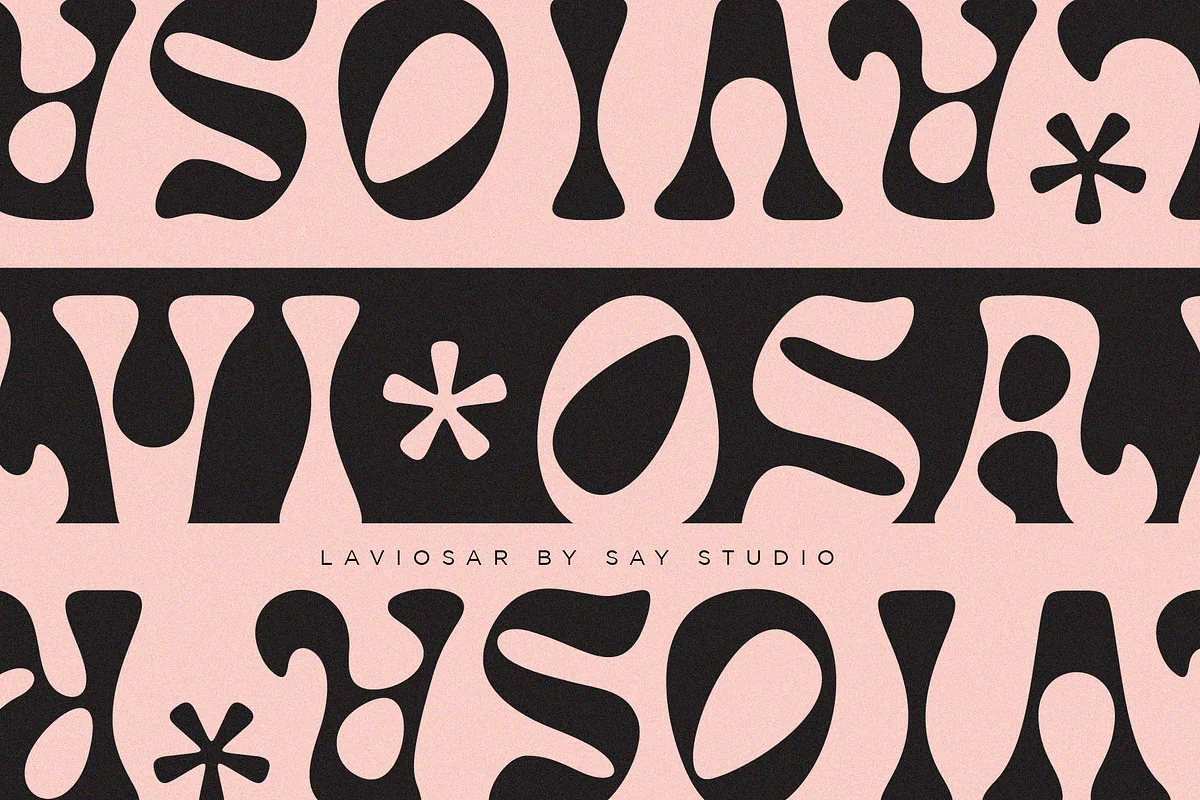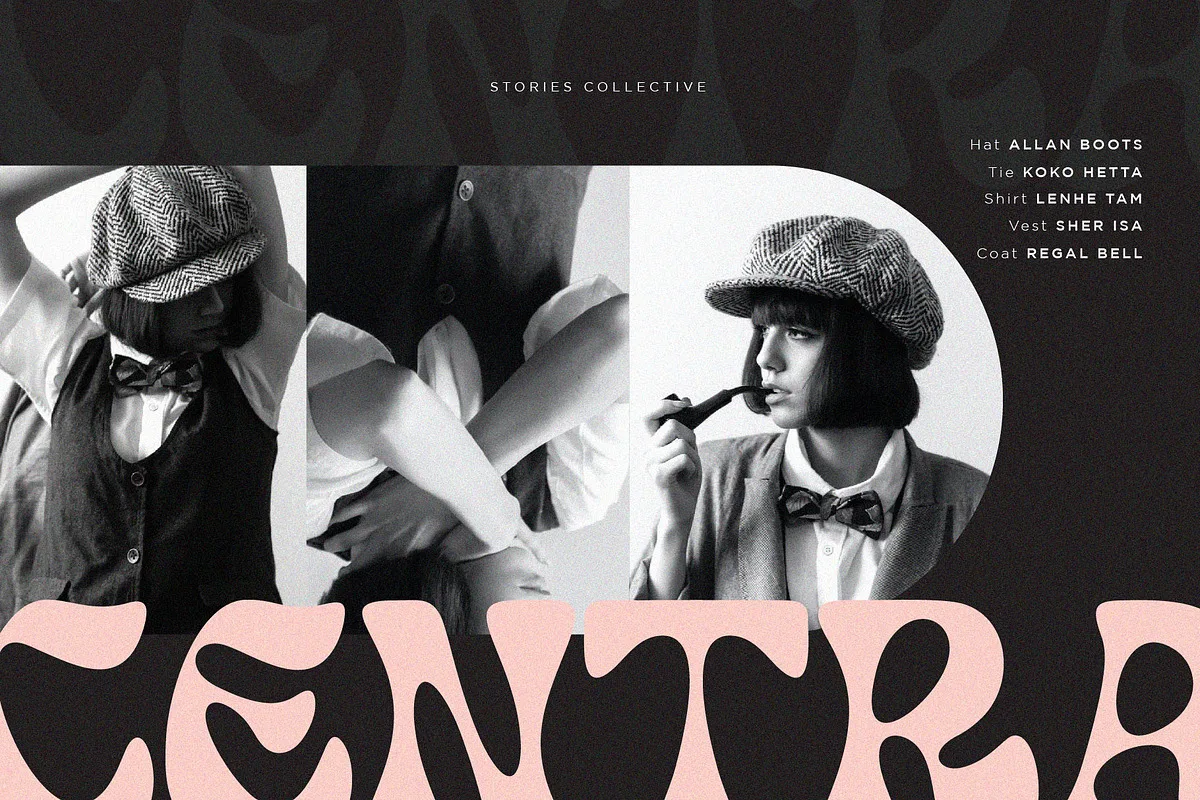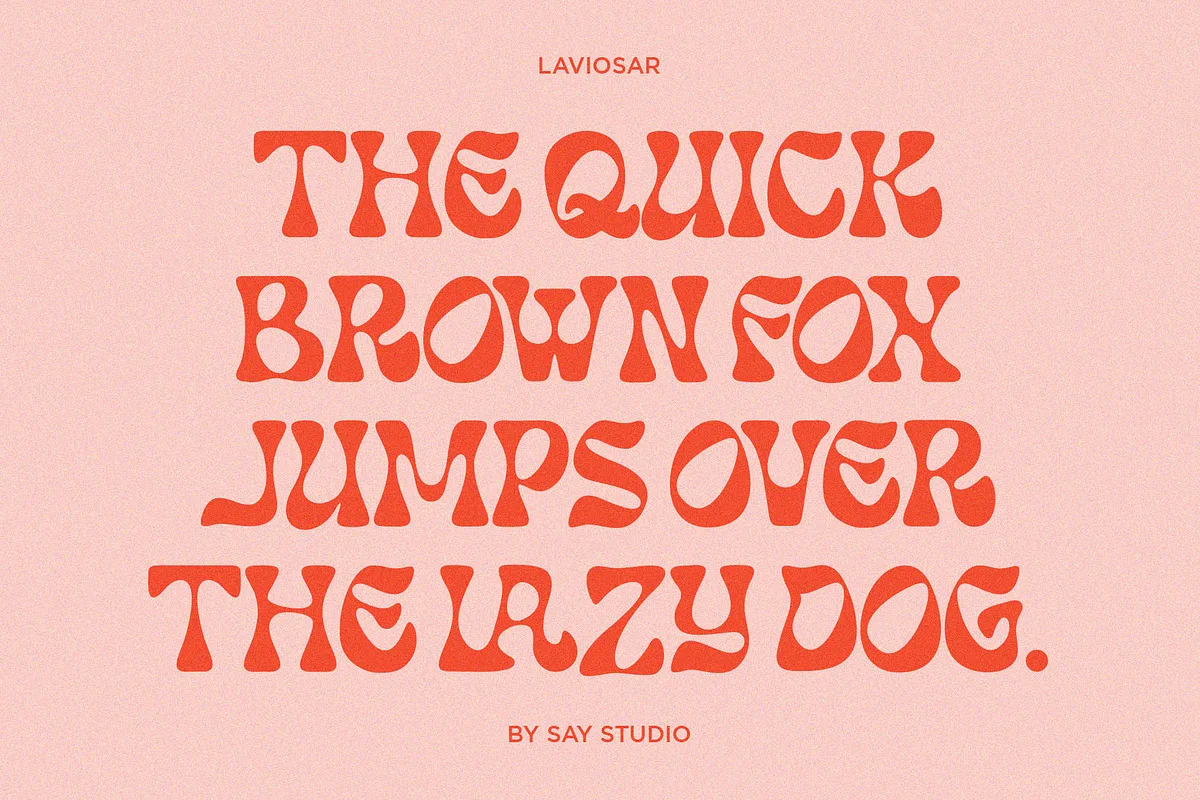
Laviosar is a psychedelic-inspired display typeface. Unique tripped-out lettering makes this font perfect for those groovy band posters, hippy logos and quotes. It mixes futurist letters with nostalgic curves to create stand-out typography. Including lots of alternate letters!